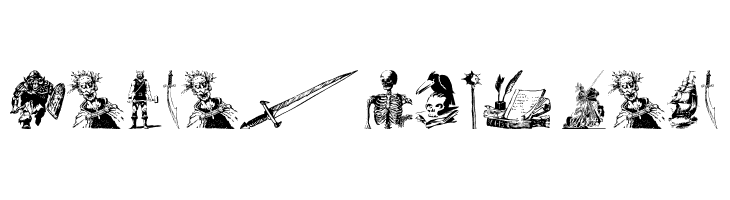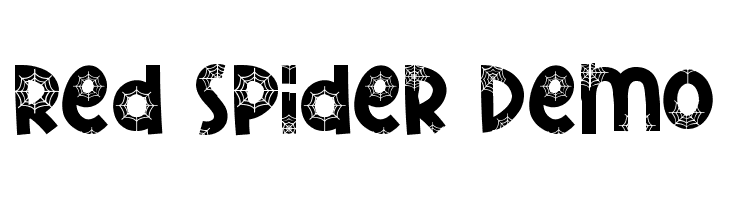
A decorative font with characters enclosed in barn-like structures, ideal for rustic themes.
A decorative font with a spider web motif, perfect for spooky themes.
A whimsical and decorative font with elegant loops and curls.
A decorative font with characters inside football shapes, perfect for sports themes.
Whimsical, illustrated character font with a sci-fi theme.
Fantasy-themed clipart illustrations form each character.
A display font made of ninja silhouette figures in action poses.
A sci-fi themed icon font featuring recognizable pop culture symbols.
A display font made from weapon and tool silhouettes.
A bold, modern font with thick strokes and a slightly condensed style.